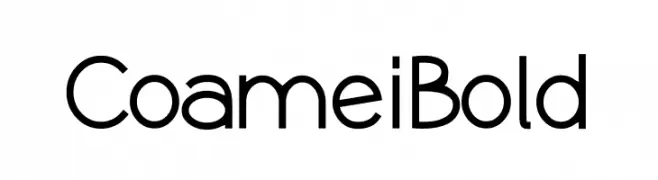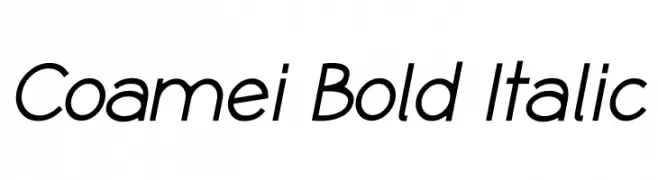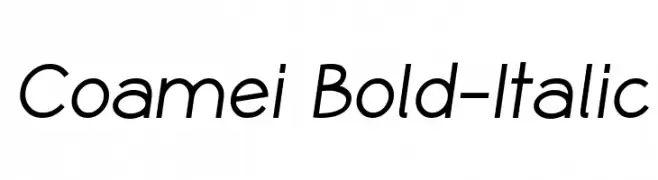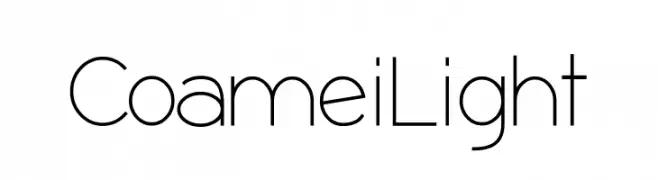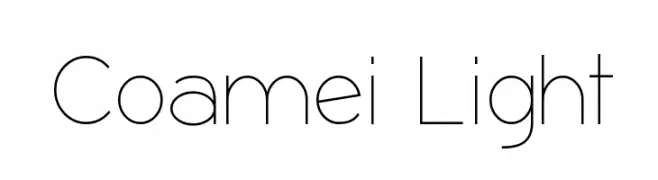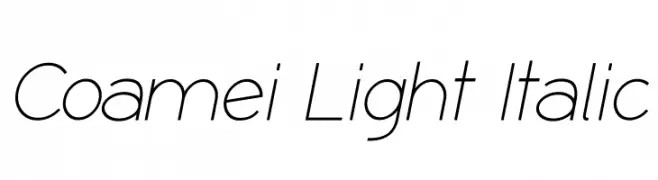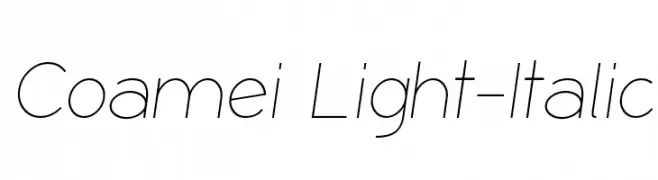
A modern, geometric sans-serif font with clean lines and uniform strokes.
A modern, geometric sans-serif font with bold, clean lines.
A bold, italicized font with a modern and sleek design.
A modern, bold italic sans-serif font with a sleek and dynamic style.
A modern, geometric sans-serif font with clean lines and balanced spacing.
A clean, geometric font with thin lines and a modern aesthetic.
A modern, light italic font with elegant and fluid design.
A modern, light, and italic font with clean lines and elegant curves.